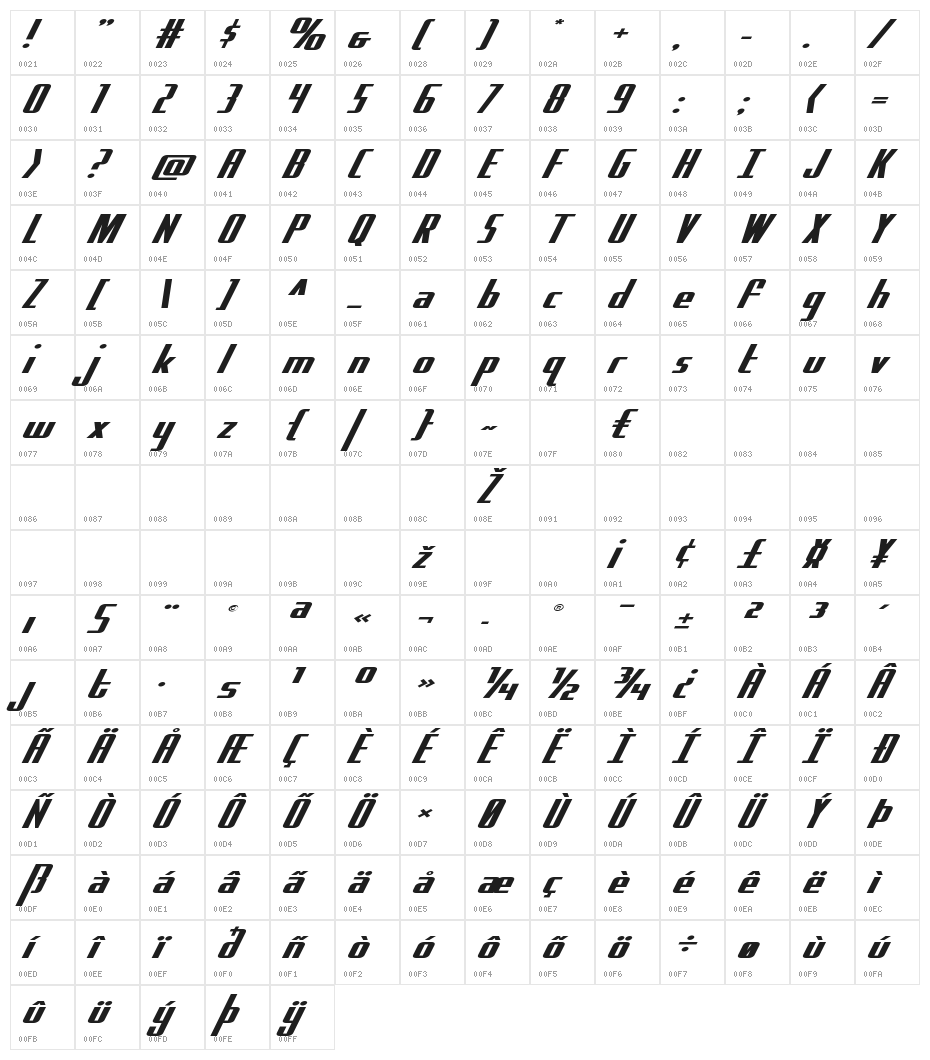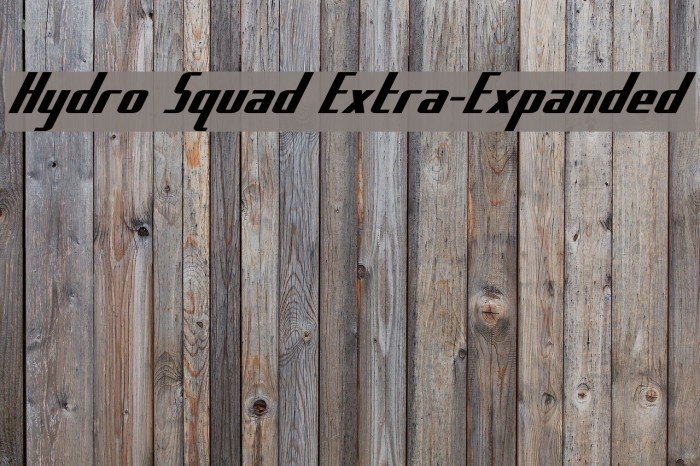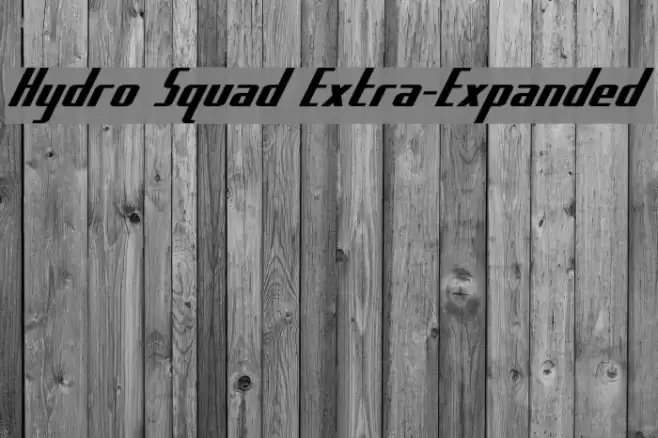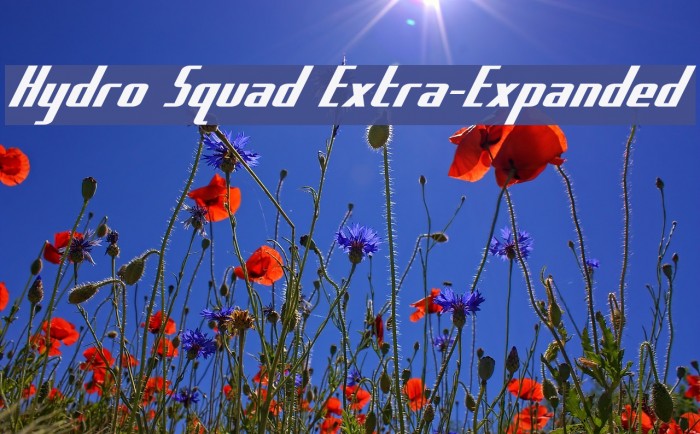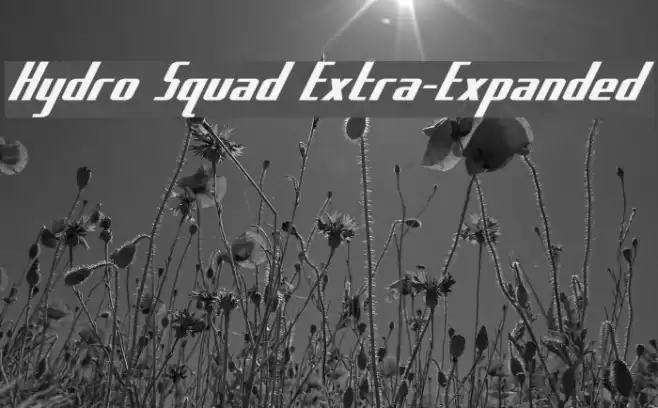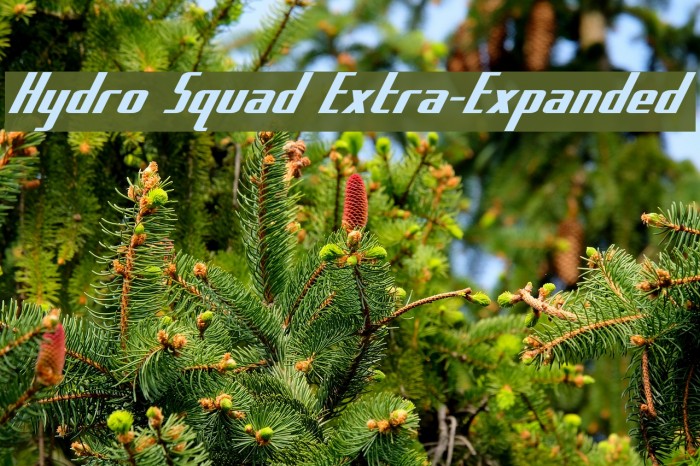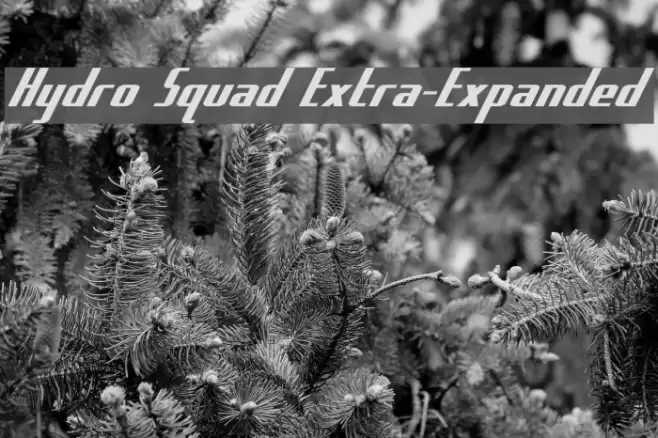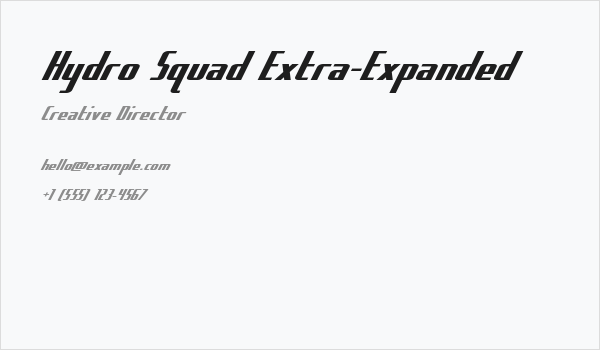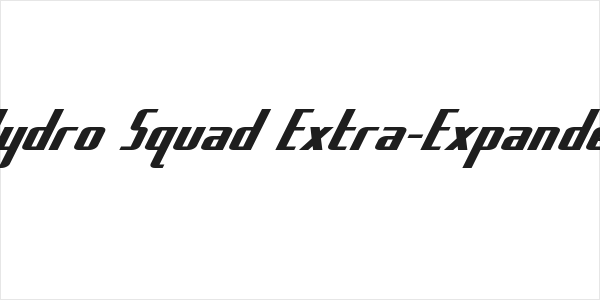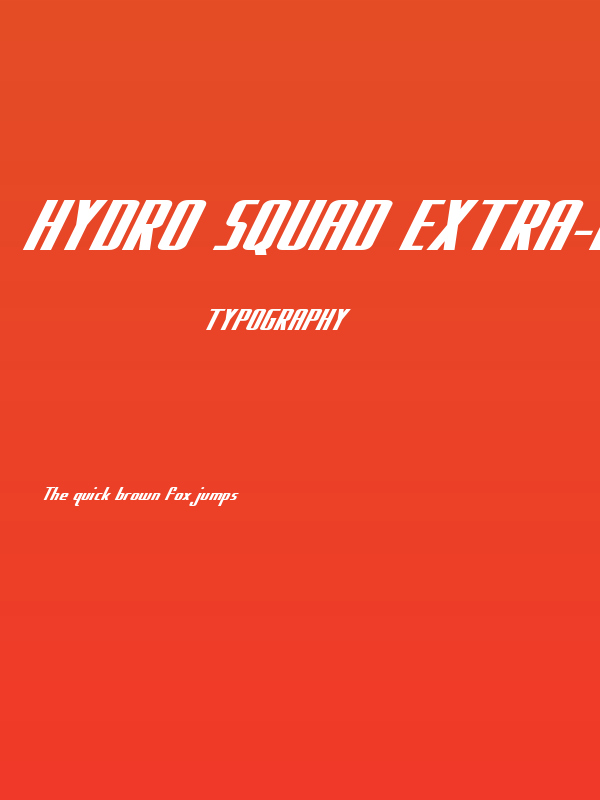
Hydro Squad Extra-Expanded Font
Hydro Squad Extra-Expanded Description
This font features a bold and dynamic design with a distinctly modern flair. The characters are sharply angled, giving them a sense of motion and energy. The uppercase letters are particularly striking, with their elongated forms and slanted edges. The lowercase letters maintain a consistent style, complementing the uppercase with a slightly more compact appearance. Numbers and special characters follow the same design principles, ensuring a cohesive look across all text. The overall aesthetic is sleek and futuristic, making it ideal for projects that require a strong visual impact.
| Proposed Projects | Ideal for sports branding, tech company logos, dynamic posters, and modern web design. |